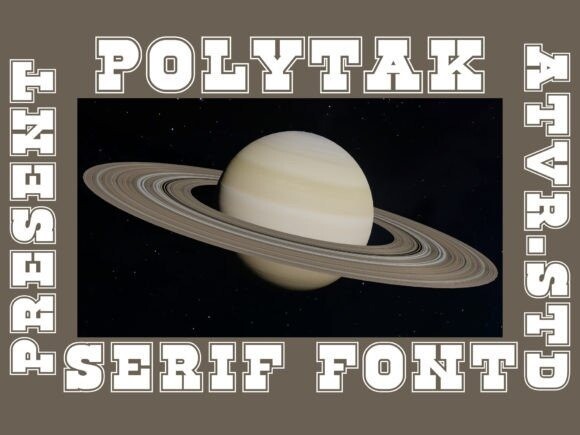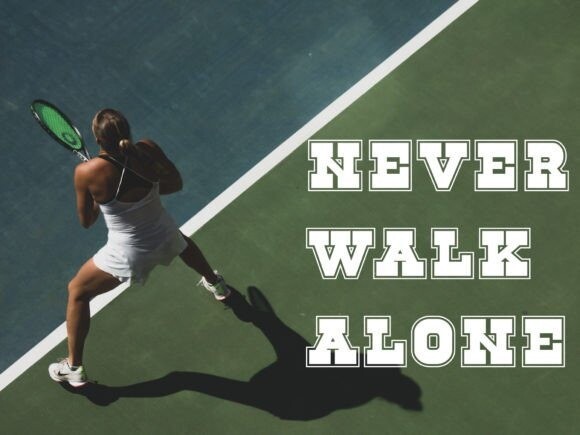
Polytak Font
Polytak is a modern and cool serif display font. No matter the topic, this font will be an incredible asset to your fonts’ library, as it has the potential to elevate any creation.